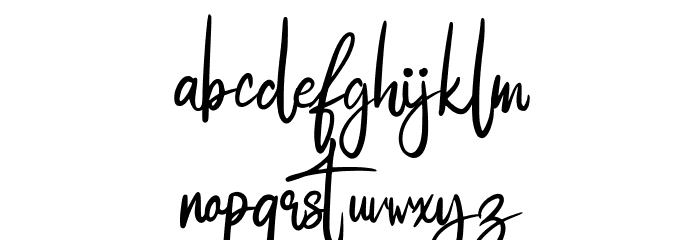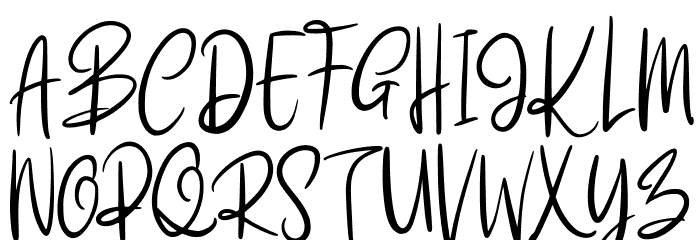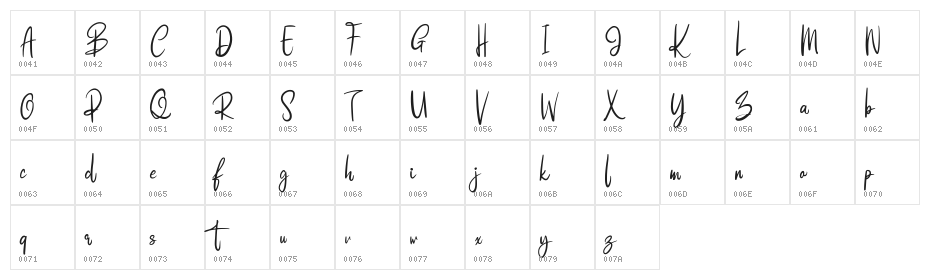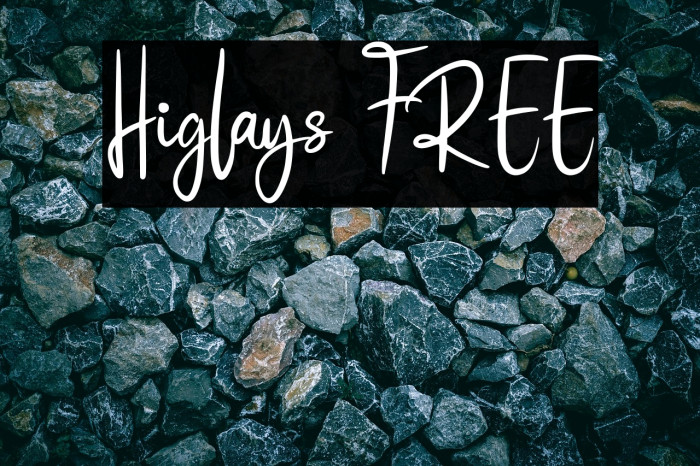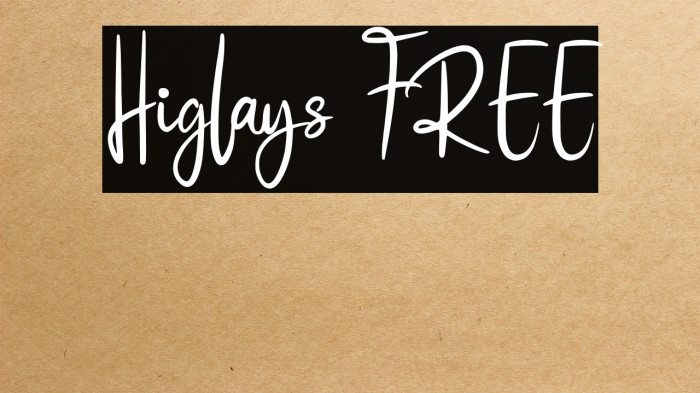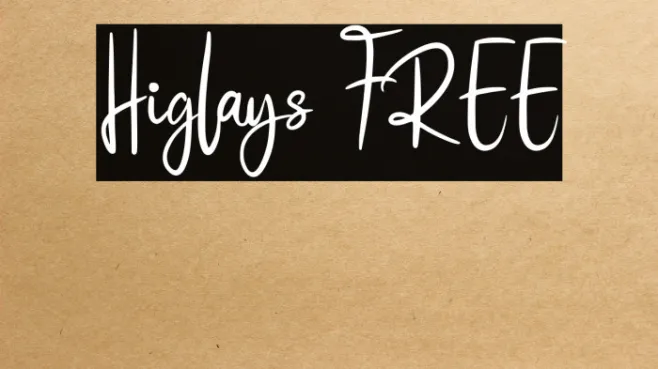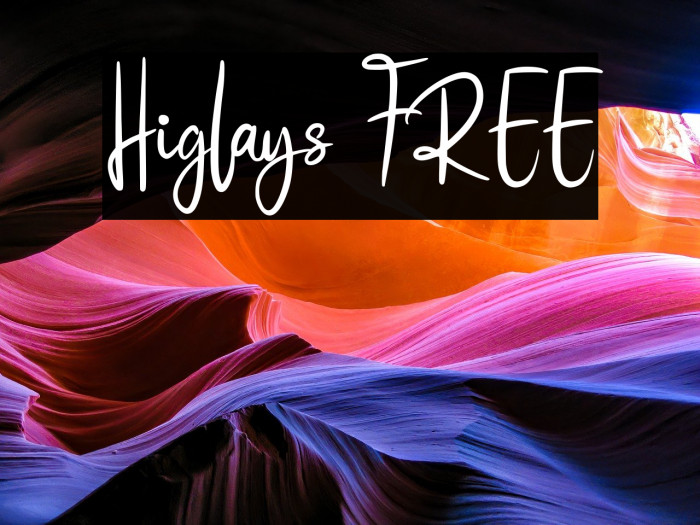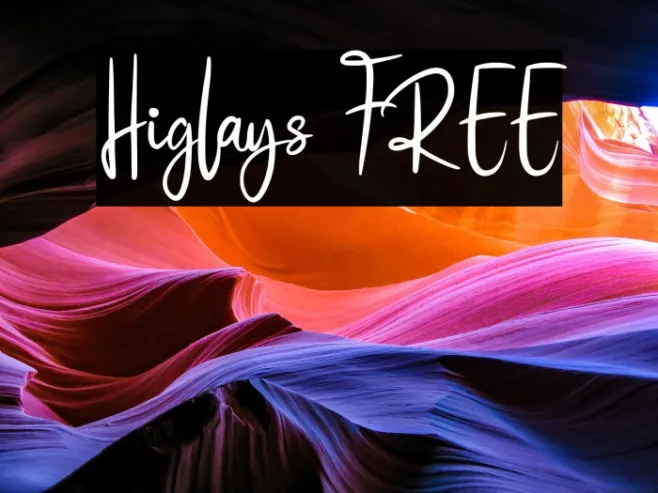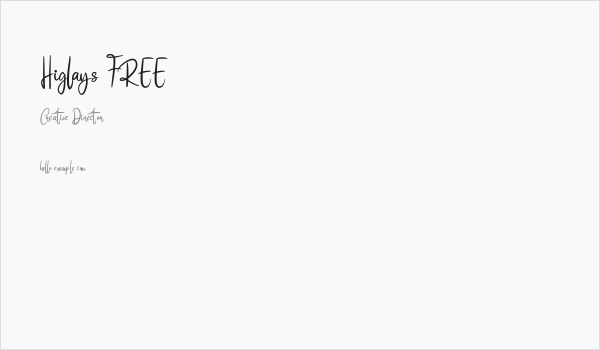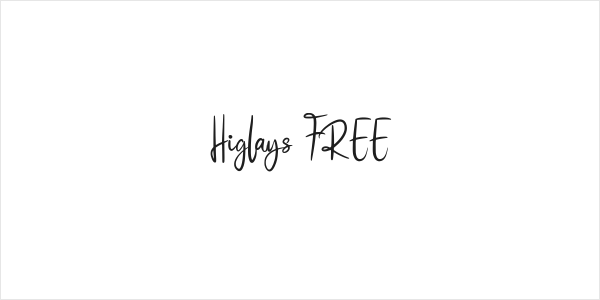
Higlays FREE Font
This font exhibits a playful and artistic handwritten style, characterized by its flowing and interconnected letterforms. The uppercase letters are tall and slender, with a slight slant that adds a dynamic feel. The lowercase letters maintain a consistent flow, with some characters featuring loops and curls that enhance its whimsical nature. The numbers and special characters follow the same aesthetic, ensuring a cohesive look across all glyphs. This font's unique style makes it stand out, offering a blend of elegance and casual charm.
A playful, handwritten font with flowing, interconnected letterforms.